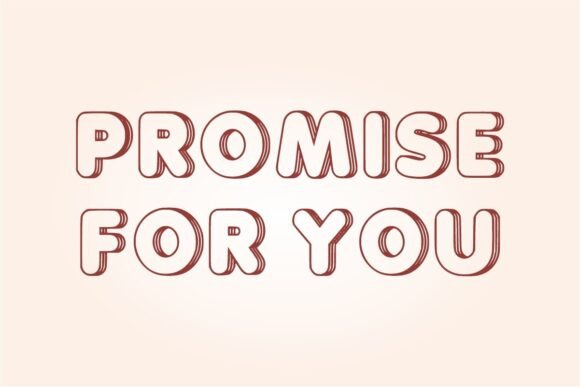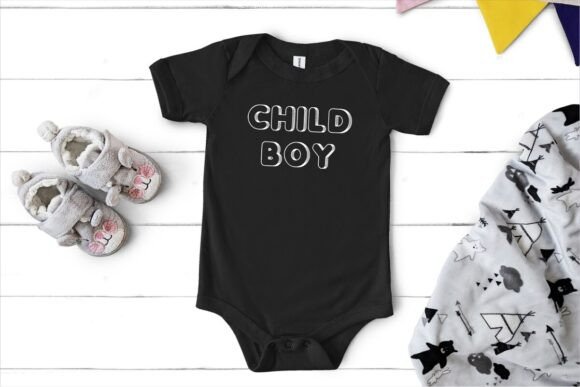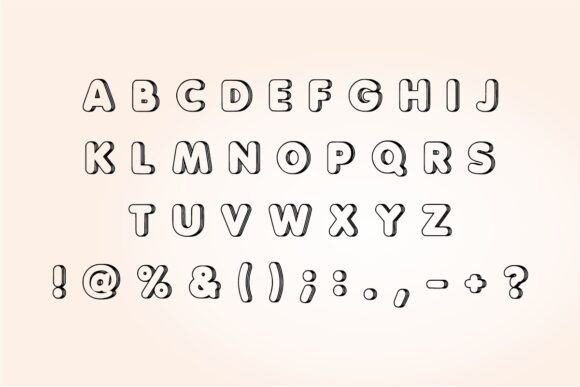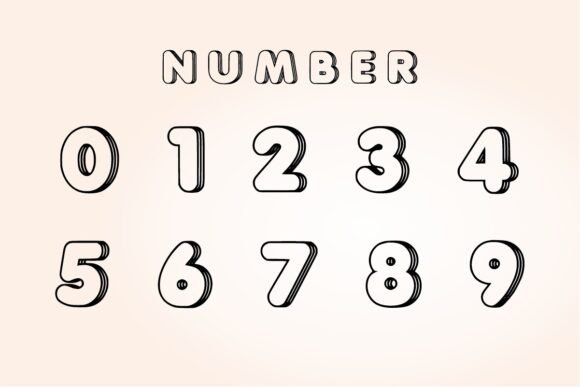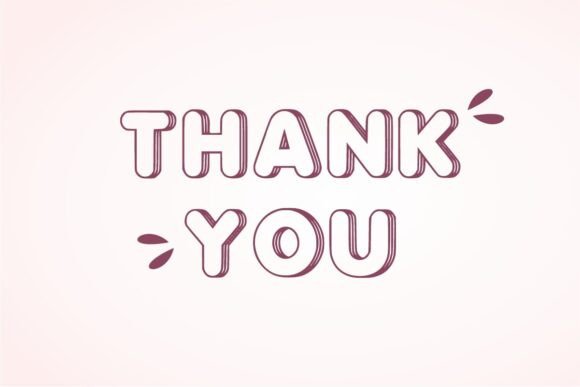
Introducing Cuteline Font: Elevate Your Designs with a Unique and Cool Display Font
In the world of design, fonts play a crucial role in conveying messages, evoking emotions, and setting the tone for a brand or project. With the vast array of fonts available, finding the perfect one that stands out from the crowd can be a daunting task. However, if you’re looking for a font that can add a touch of uniqueness and coolness to your designs, look no further than Cuteline Font. This display font is a game-changer, and in this article, we’ll explore what makes it an excellent addition to your font library.
What is Cuteline Font?
Cuteline is a distinctive and stylish display font designed to make your creations pop. Its unique design elements and cool aesthetic make it perfect for a wide range of projects, from branding and advertising to packaging and digital media. Whether you’re a designer, crafty DIY enthusiast, or simply someone who appreciates great typography, Cuteline Font is sure to impress.
Key Features of Cuteline Font
- Unique Design: Cuteline boasts a one-of-a-kind design that sets it apart from more traditional fonts. Its distinctive style ensures that your text will stand out, grabbing the attention of your audience.
- Versatility: Despite being a display font, Cuteline is surprisingly versatile. It can be used for various purposes, including headings, titles, logos, and more.
- Easy to Read: While it’s a decorative font, Cuteline remains clear and legible, making it suitable for both short phrases and longer texts.
- High-Quality: The font is crafted with precision, ensuring that it looks great in both digital and print formats.
Who Can Benefit from Cuteline Font?
Cuteline Font is an excellent resource for a variety of users, including:
- Graphic Designers: Professionals looking for a unique font to add to their arsenal will find Cuteline to be a valuable asset.
- Branding and Marketing Specialists: Those working on branding projects or marketing campaigns can use Cuteline to create memorable and impactful titles and slogans.
- DIY Crafters: Individuals who enjoy crafting, scrapbooking, or making DIY projects can use Cuteline to add a personalized touch to their work.
- Web Designers and Developers: For those building websites or creating digital content, Cuteline can be used to enhance headings, titles, and other textual elements.
How to Use Cuteline Font Effectively
To make the most of Cuteline Font, consider the following tips:
- Pair it with Complementary Fonts: Use Cuteline as a headline font and pair it with a simpler font for body text to create visual contrast.
- Experiment with Colors: Take advantage of Cuteline’s unique design by experimenting with different colors and gradients.
- Consider the Context: Ensure that the font aligns with the project’s tone and message. Cuteline’s playful nature makes it suitable for creative and youthful themes.
Cuteline Font is more than just a font; it’s a design statement. Its unique and cool aesthetic makes it an invaluable resource for designers, crafters, and anyone looking to elevate their projects. Whether you’re working on a professional design or a personal craft project, Cuteline has the potential to enhance any creation. By incorporating this versatile and eye-catching font into your library, you’ll open up new possibilities for creative expression and communication.